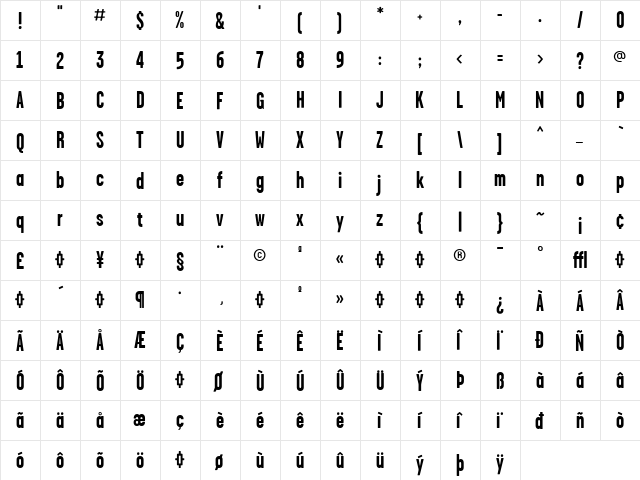
GarageGothic-Bold Regular
Design Context for GarageGothic-Bold Typeface
GarageGothic-Bold has the quiet confidence of well-executed sans-serif typography: versatile, unobtrusive, and dependable at any size. The heavy weight commands attention and anchors typographic hierarchies.
Well-suited to navigation labels, product packaging, and anywhere legibility at scale is essential.
Font Pairing: Use GarageGothic-Bold for headlines alongside a lighter-weight sans or serif for body copy to establish clear visual hierarchy.
Pro Tip: Use GarageGothic-Bold for UI labels, navigation, and short-form body copy where clean legibility is the priority.